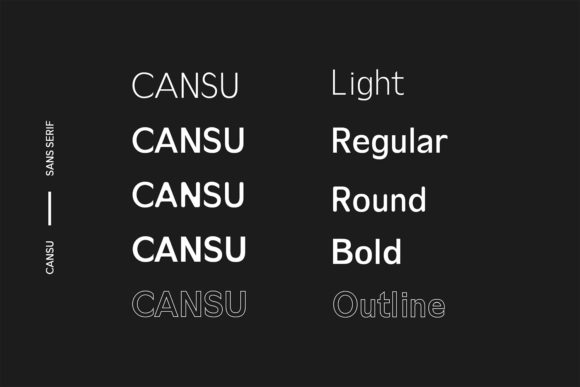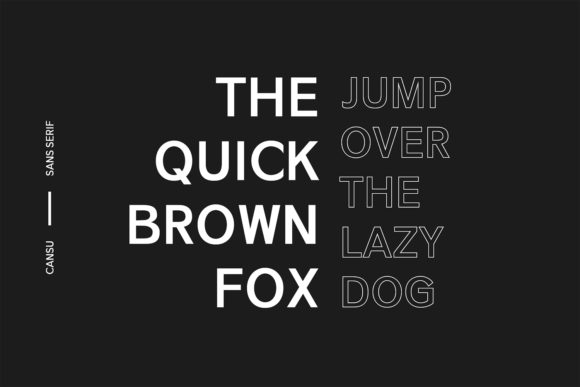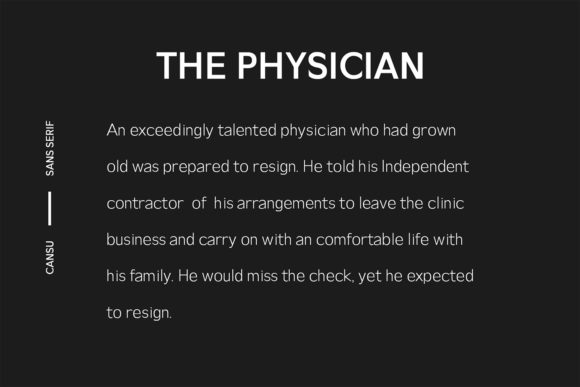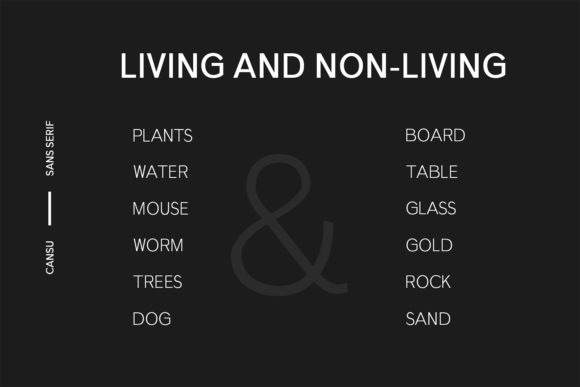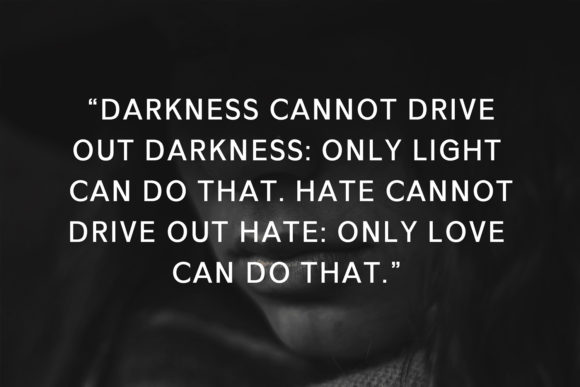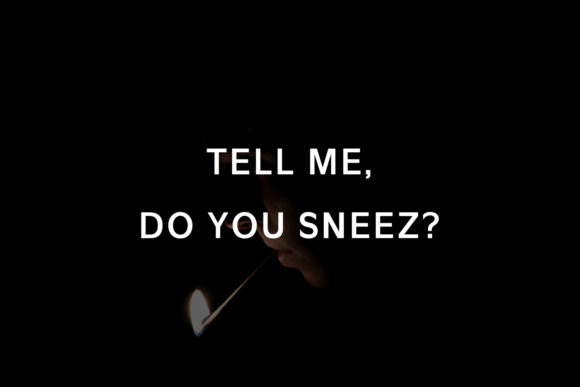
Cansu Family Font: A Timeless and Versatile Typeface for Designers and Crafters
In the world of typography, a well-designed font can elevate a project from ordinary to extraordinary. For designers and crafters seeking a classy and minimal rounded sans serif typeface, the Cansu Family Font is an excellent choice. This versatile font comes in five weights: Regular, Light, Round, Outline, and Bold versions, making it perfect for any font occasion.
What is Cansu Family Font?
Cansu is a carefully crafted typeface that exudes elegance and sophistication. Its rounded sans serif design gives it a friendly and approachable feel, while its minimalistic approach ensures it remains versatile and adaptable. The font family consists of five distinct weights, each with its unique characteristics:
- Regular: The standard weight, ideal for body text and general use.
- Light: A delicate and airy weight, perfect for captions, headings, or when a subtle touch is required.
- Round: A softer, more rounded version, adding a touch of warmth and friendliness to your design.
- Outline: A unique and striking weight, featuring an outlined design that adds depth and visual interest.
- Bold: A strong and confident weight, ideal for headings, titles, or when you need to make a statement.
The Cansu Family Font offers a range of benefits that make it an attractive choice for designers and crafters:
- Versatility: With five distinct weights, Cansu can be used for a wide range of projects, from elegant headings to body text, and even decorative elements.
- Legibility: The rounded sans serif design ensures excellent legibility, making it easy to read and understand.
- Elegance: Cansu’s minimalistic approach and elegant lines give it a sophisticated and refined feel, perfect for high-end designs.
- Uniqueness: The Outline weight adds a touch of individuality, allowing you to create striking and memorable designs.
Use Cases and Applications
The Cansu Family Font is suitable for a variety of projects and applications, including:
- Branding and Logo Design: Cansu’s elegant and versatile design makes it an excellent choice for logos, wordmarks, and brand identities.
- Print Materials: Use Cansu for brochures, flyers, posters, business cards, and other print materials where a sophisticated and refined look is desired.
- Digital Media: Cansu is perfect for digital platforms, including websites, social media graphics, and mobile apps.
- Crafting and DIY Projects: Add a touch of elegance to your crafting and DIY projects, such as handmade cards, invitations, and scrapbooking.
Tips and Tricks for Using Cansu Family Font
To get the most out of the Cansu Family Font, consider the following tips:
- Mix and Match: Combine different weights to create visual interest and hierarchy in your design.
- Experiment with Colors: Cansu’s elegant design pairs well with a range of colors, so don’t be afraid to experiment and find the perfect combination.
- Pay Attention to Spacing: Ensure adequate spacing between letters and lines to maintain legibility and visual flow.
The Cansu Family Font is a timeless and versatile typeface that offers a range of benefits and applications for designers and crafters. With its elegant and minimalistic design, five distinct weights, and excellent legibility, Cansu is perfect for any font occasion. Whether you’re working on a branding project, print materials, digital media, or crafting and DIY projects, Cansu is an excellent choice. So why not give it a try and elevate your designs to the next level?